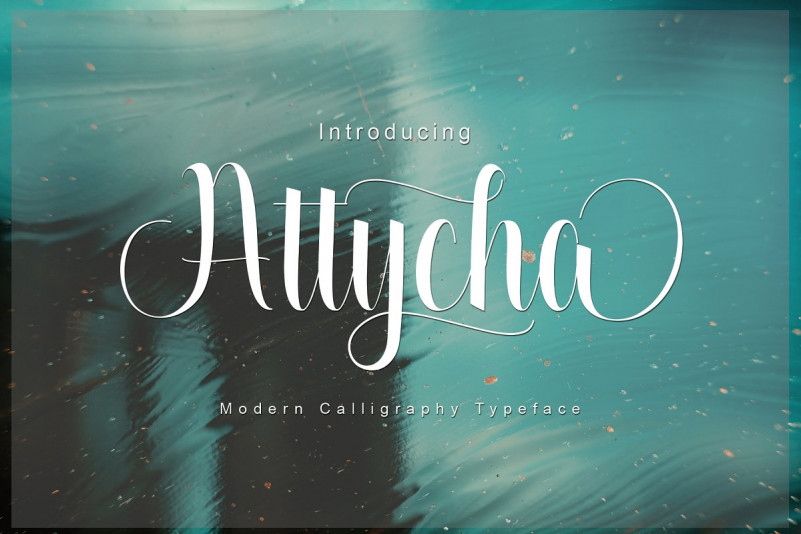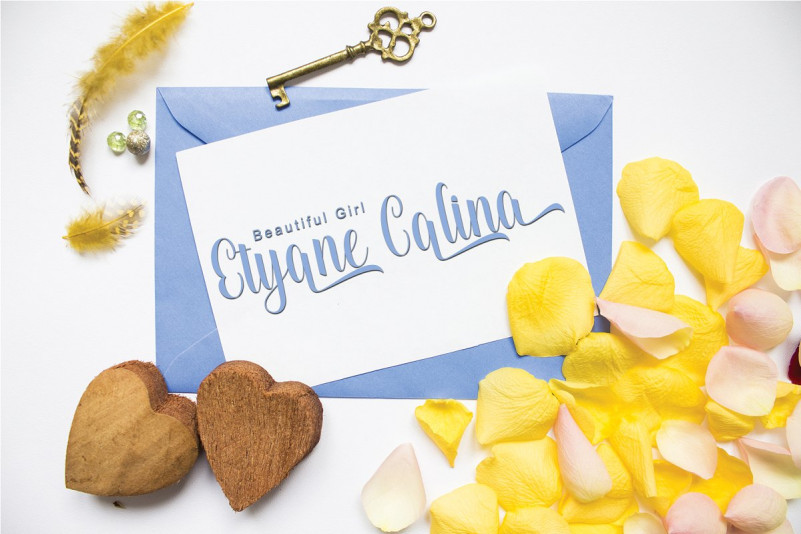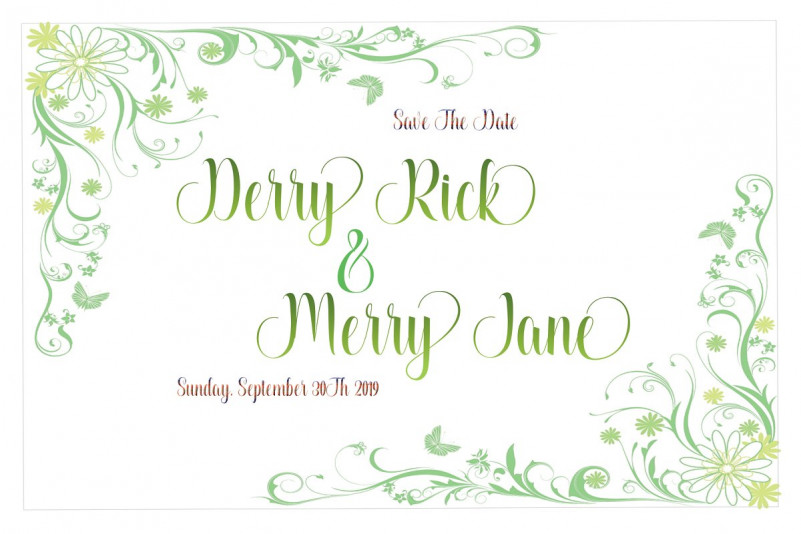
Attycha Font
Attycha Modern Calligraphy. This font was designed by handwriting, and it has a modern and unique forms of calligraphy, the writing style is very natural.
Can be used for various purposes.such as headings, logos, wedding invitation, t-shirt, letterhead, signage, lable, news, posters, badges etc.